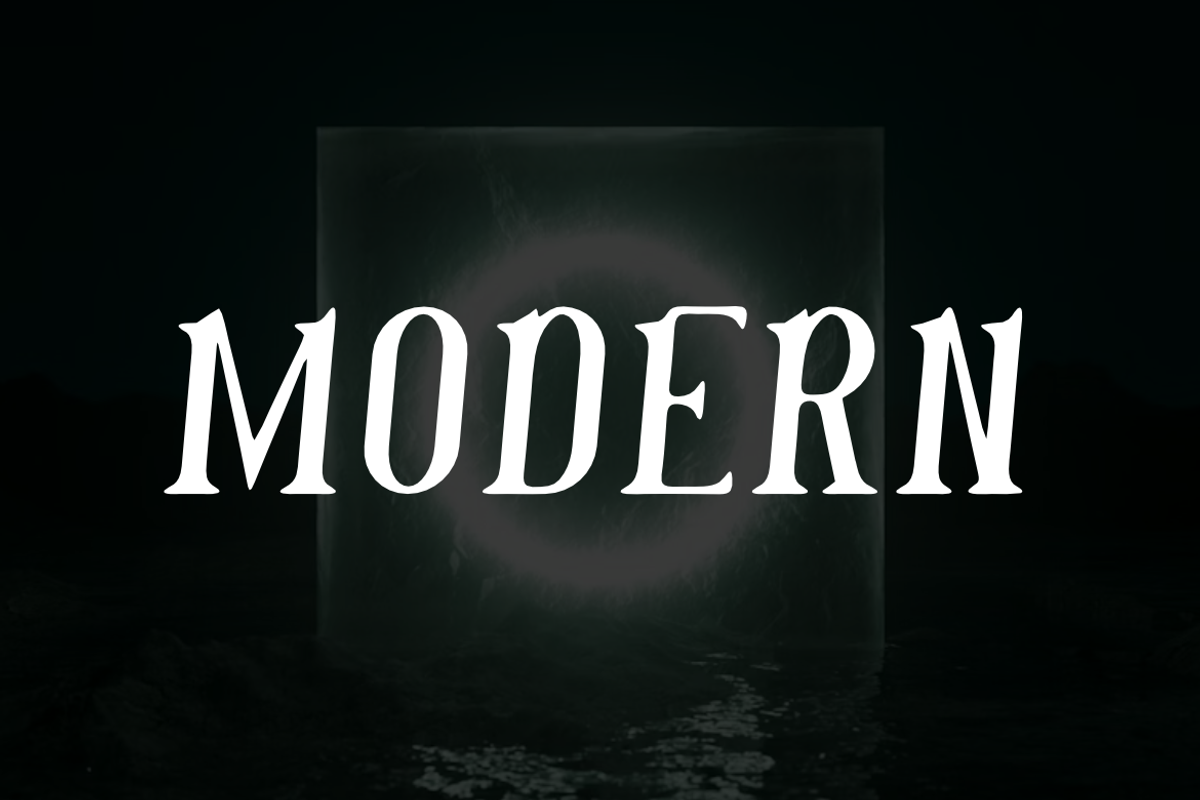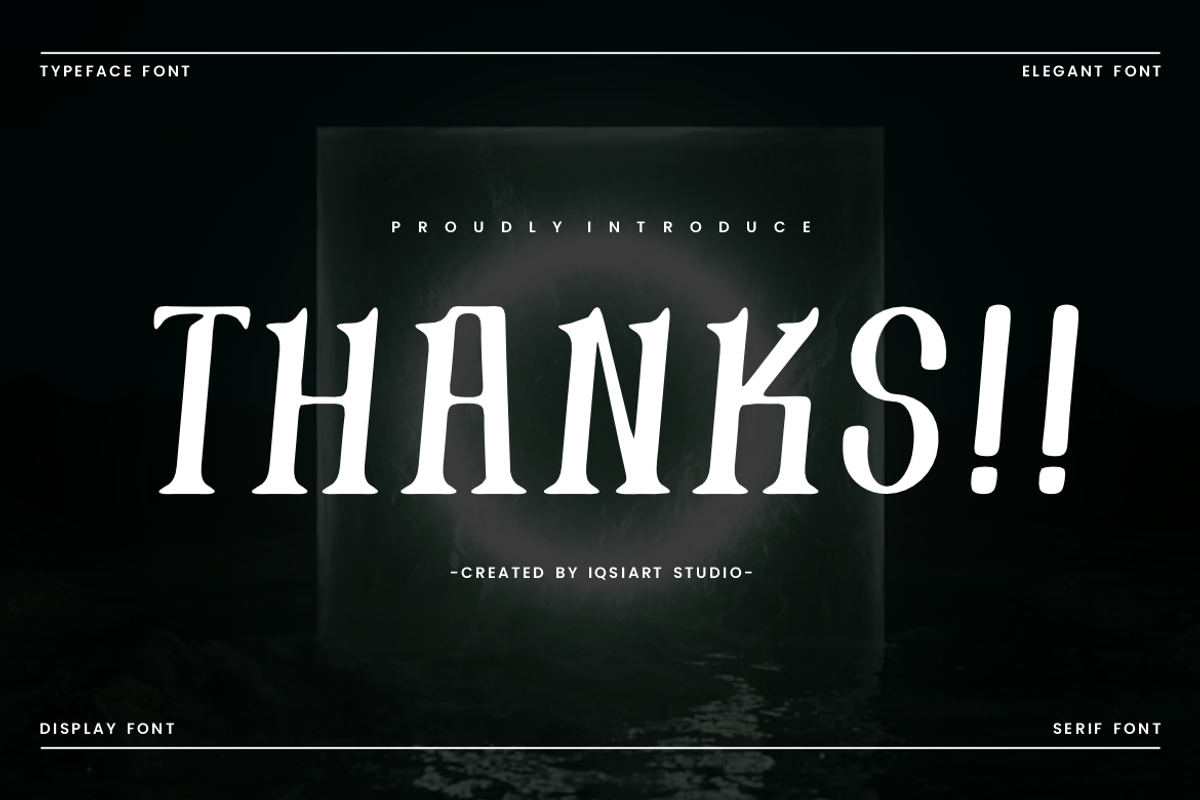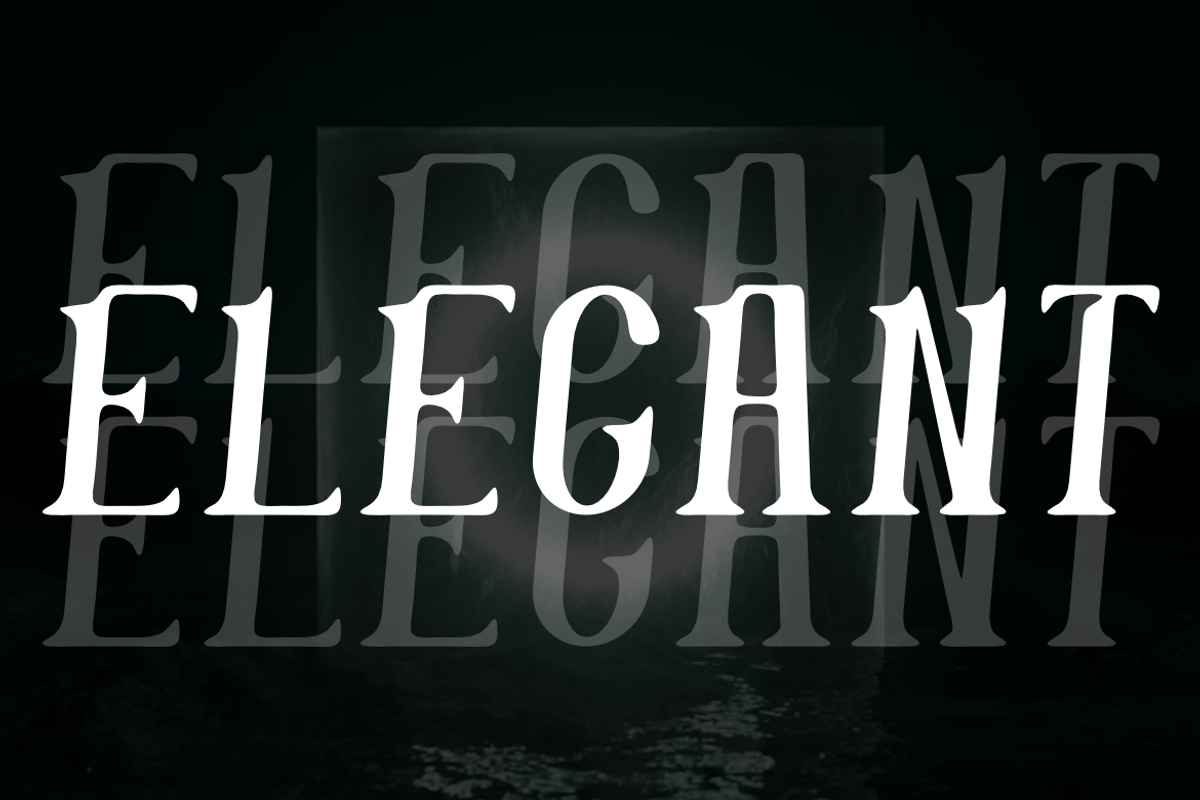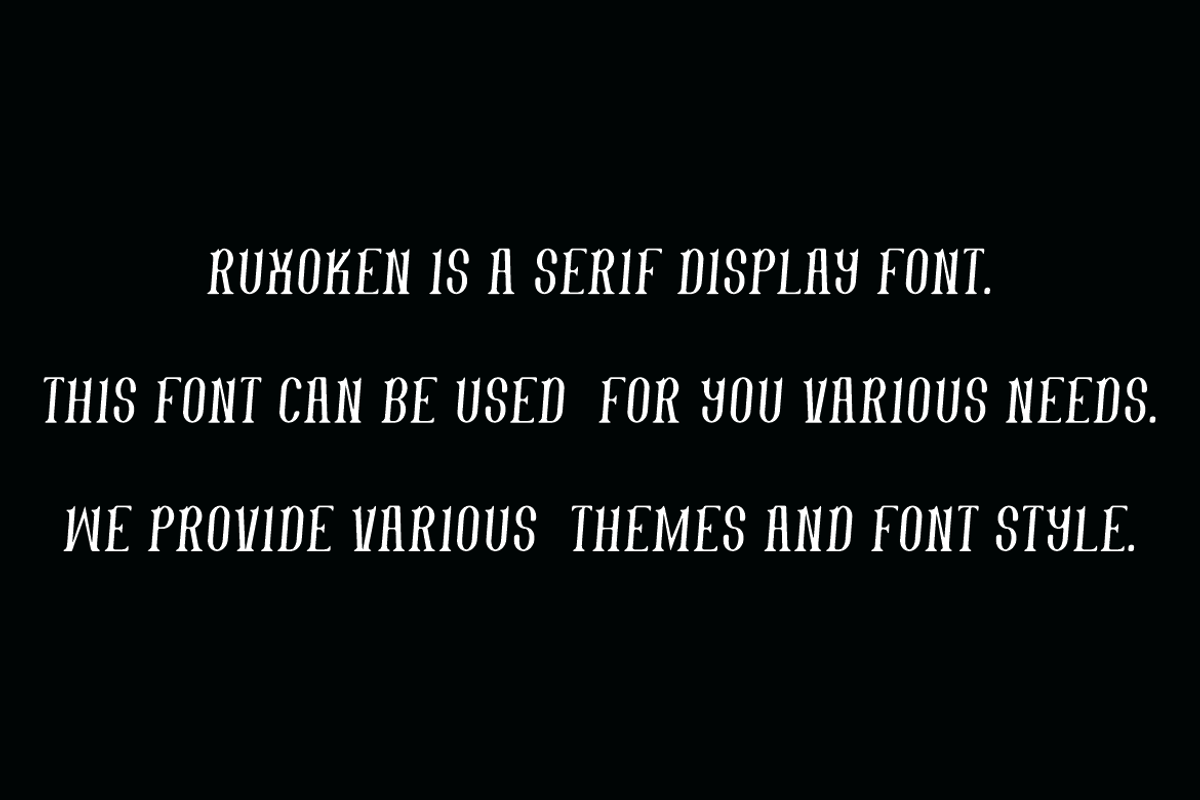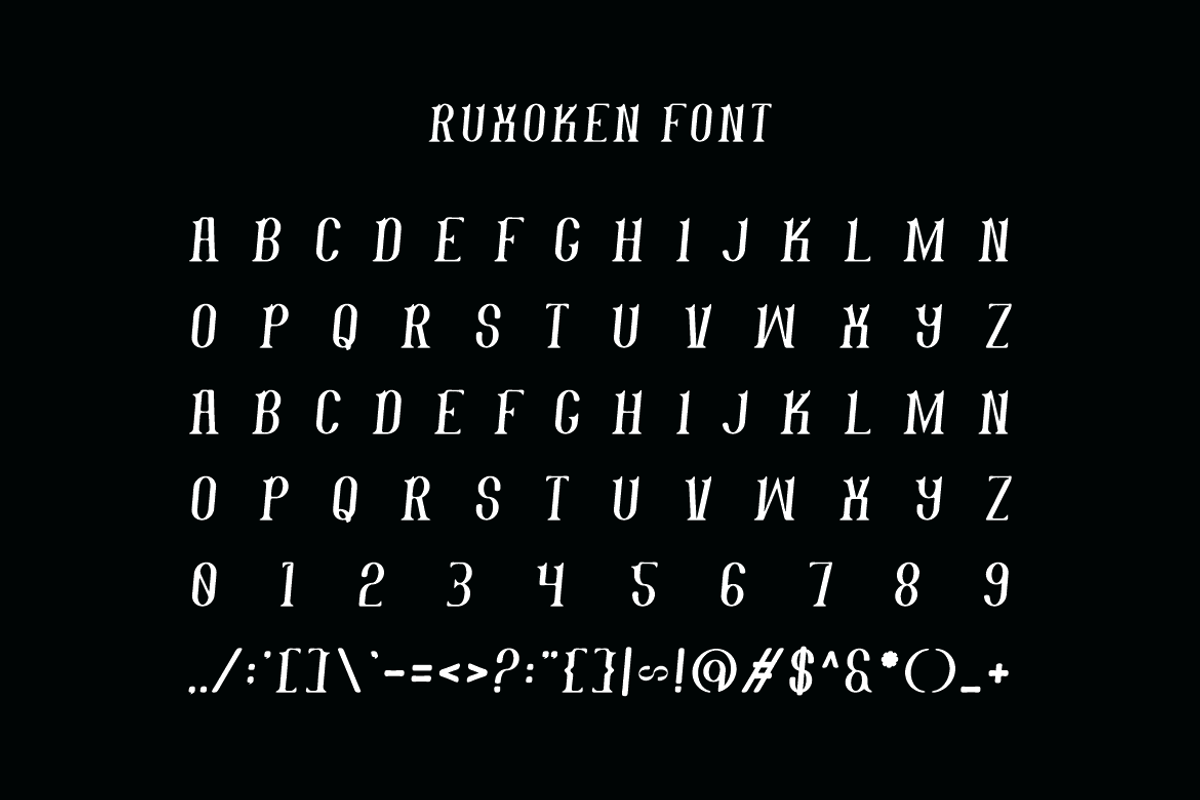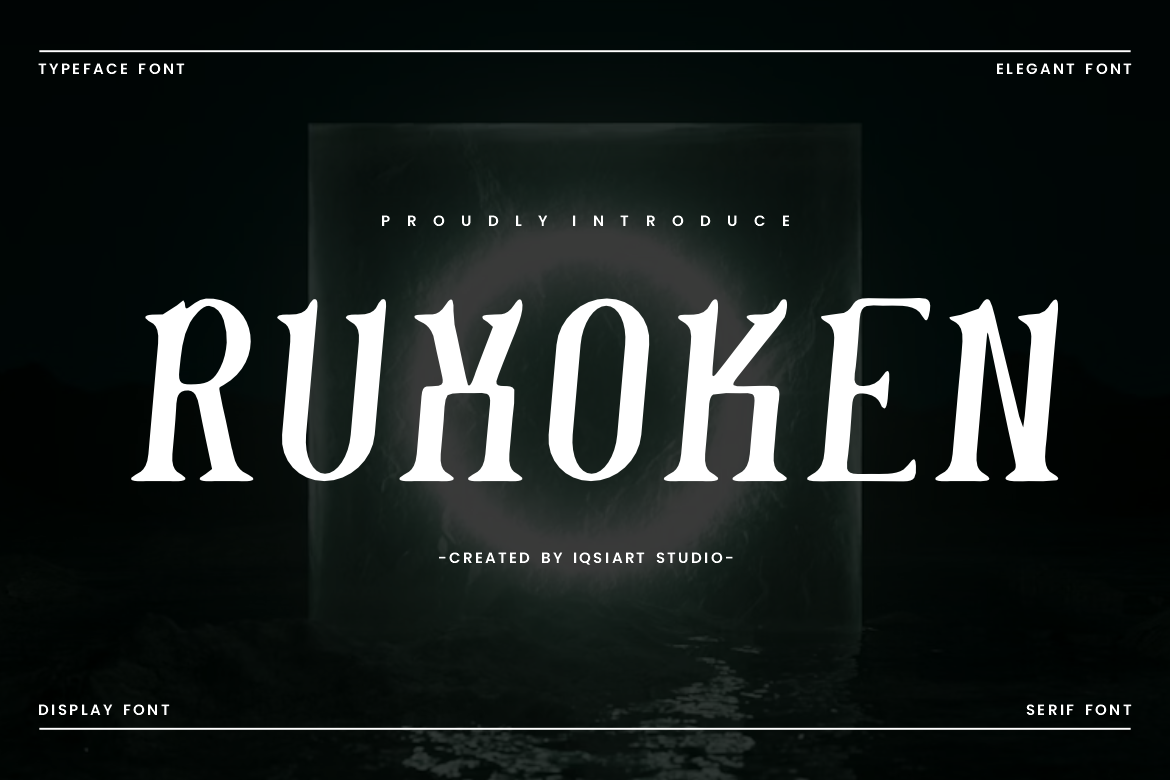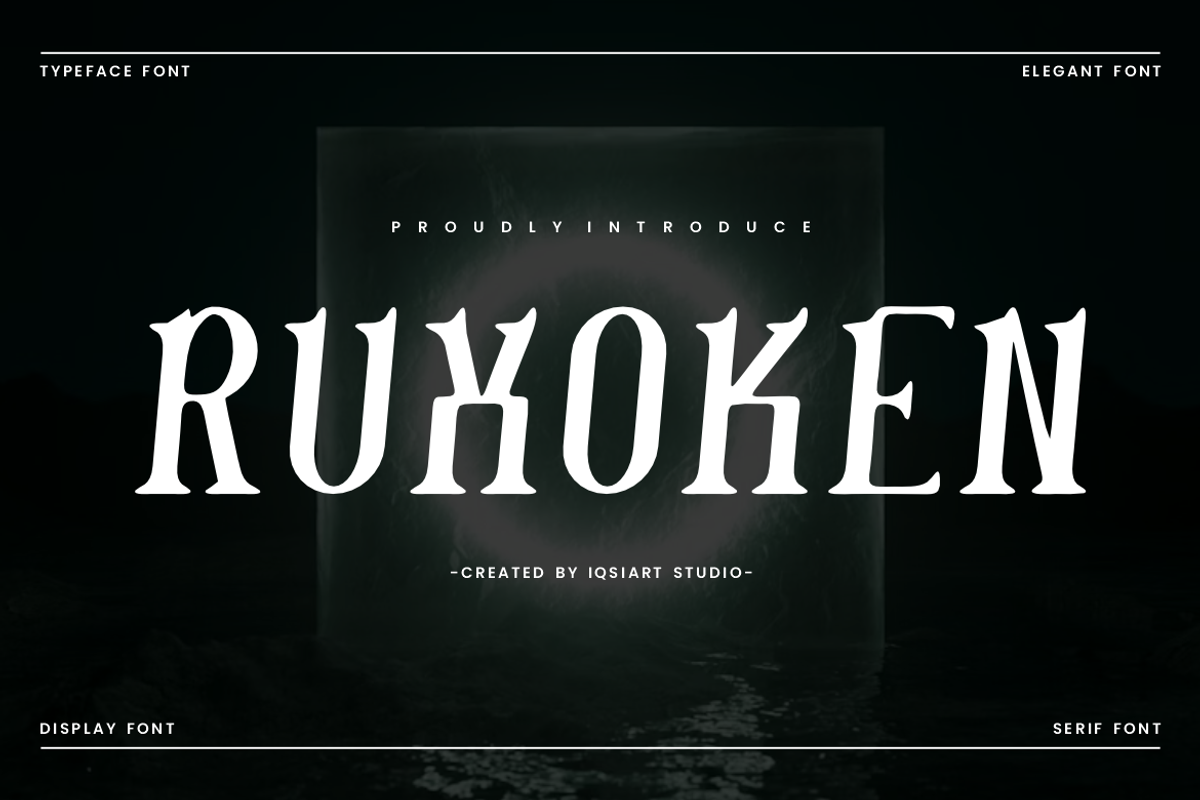
Ruxoken - Elegant Serif Font
Ruxoken Font is a best and authentic display font. This font can be used for your various needs. We provide various themes and font styles. visit our profile to get a wide variety of themes and different font styles you need.